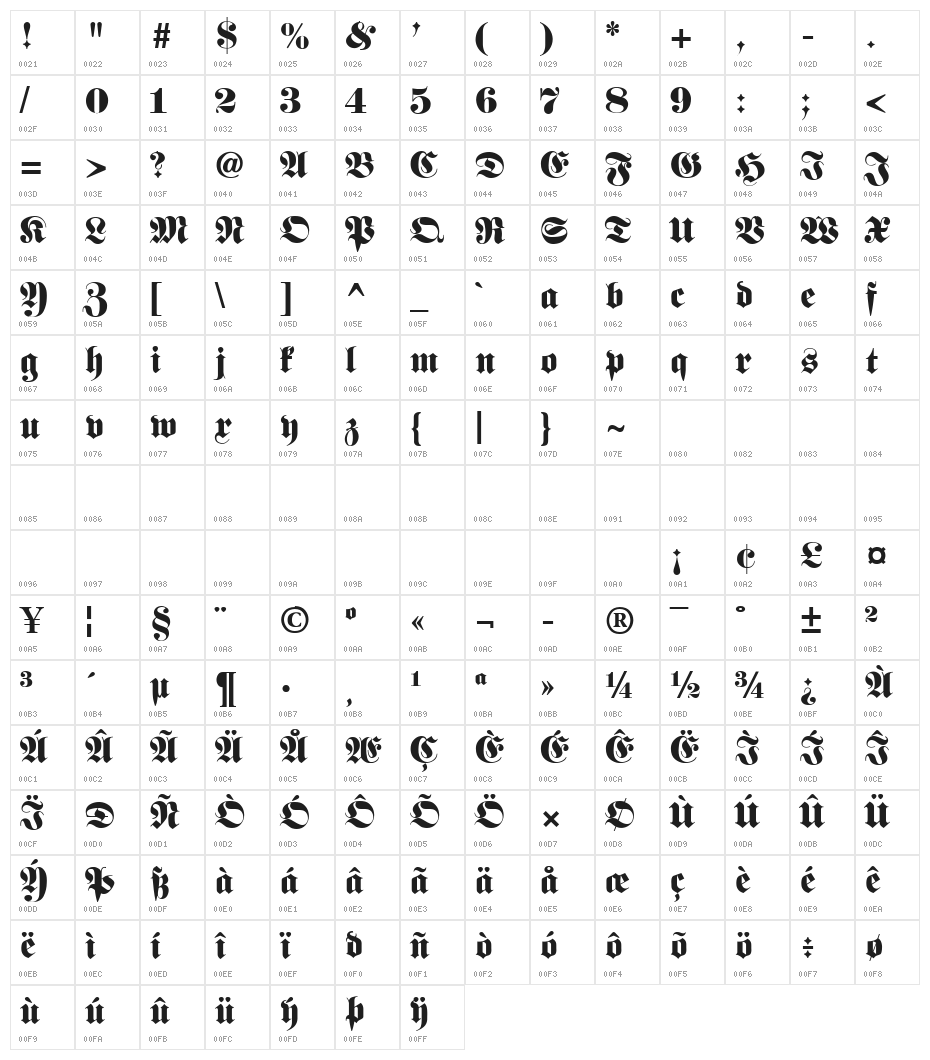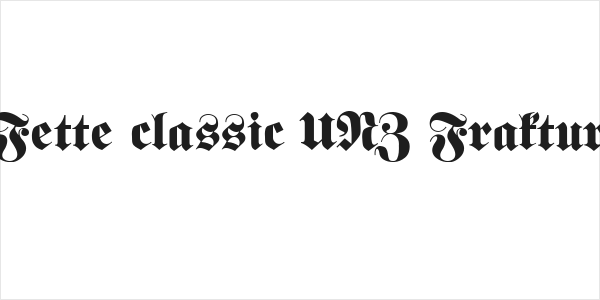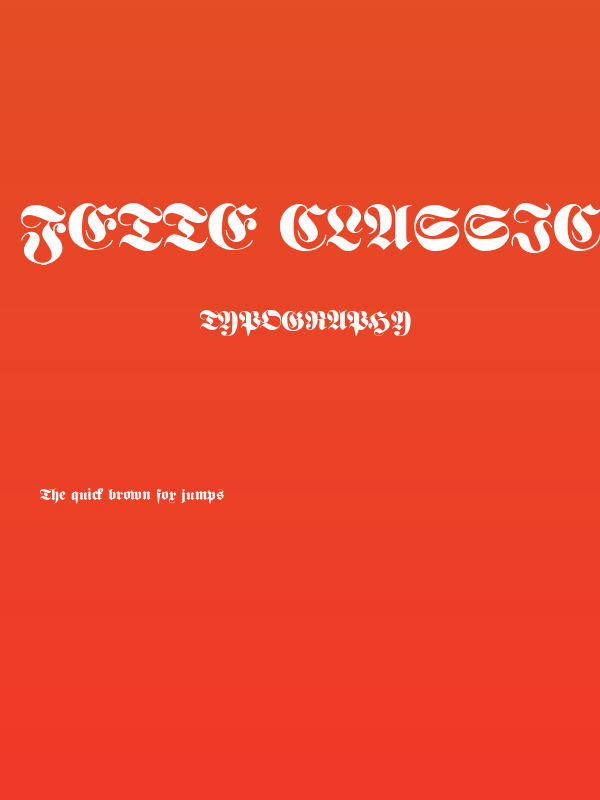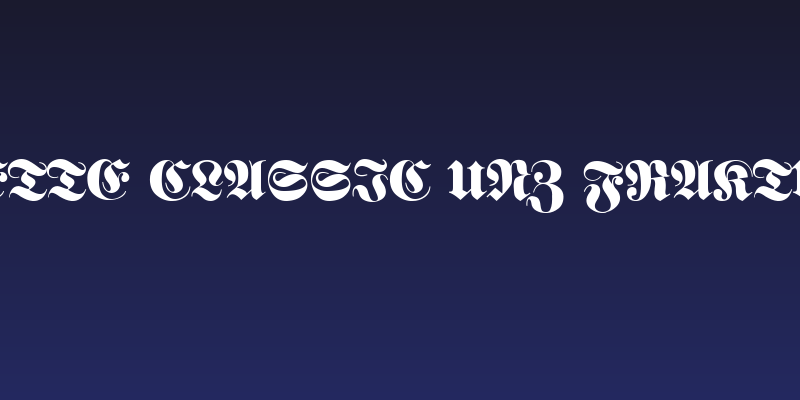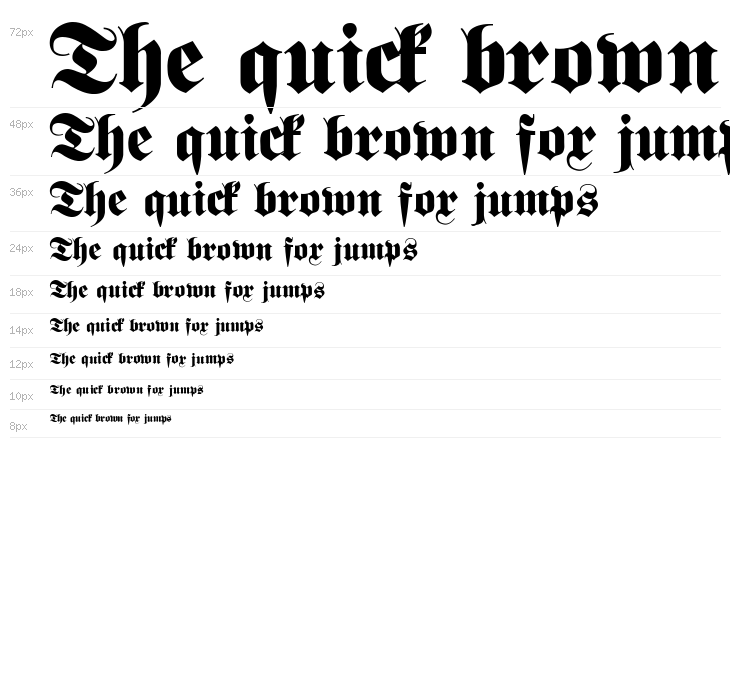
Fette classic UNZ Fraktur Font
Fette classic UNZ Fraktur Description
This font embodies the traditional elegance of blackletter typefaces, characterized by its intricate and ornate design. The uppercase letters feature sharp, angular lines with decorative flourishes, while the lowercase letters maintain a consistent style with a slightly more subdued ornamentation. The numerals are bold and distinct, complementing the overall aesthetic. Special characters are crafted with the same attention to detail, ensuring a cohesive look across all glyphs. The font's historical roots are evident in its gothic appearance, making it ideal for projects that require a touch of classic sophistication.